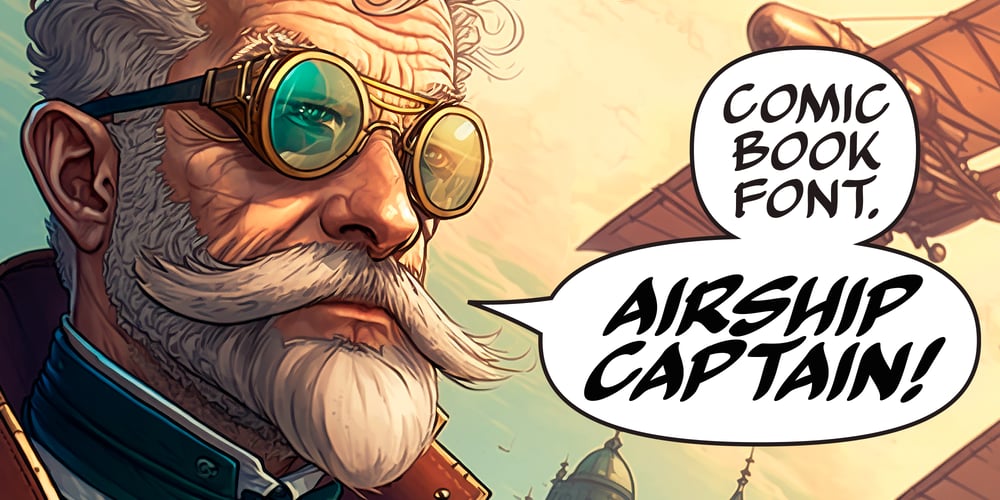
IA Airship Captain Font Family was designed by Serhii Yarovyi and published by Invisible Art Studio. IA Airship Captain contains 4 styles and family package options. IA Airship Captain is a good readable comic book dialogue font made with a marker with wavy lines, giving it uniqueness and recognition.The family includes Regular, Italic, Bold, and Bold Italic. And contains a large number of kerning pairs.Added extended Latin, extended Cyrillic and contextual autoreplacing crossbar “I” in words like I, I’m, etc.